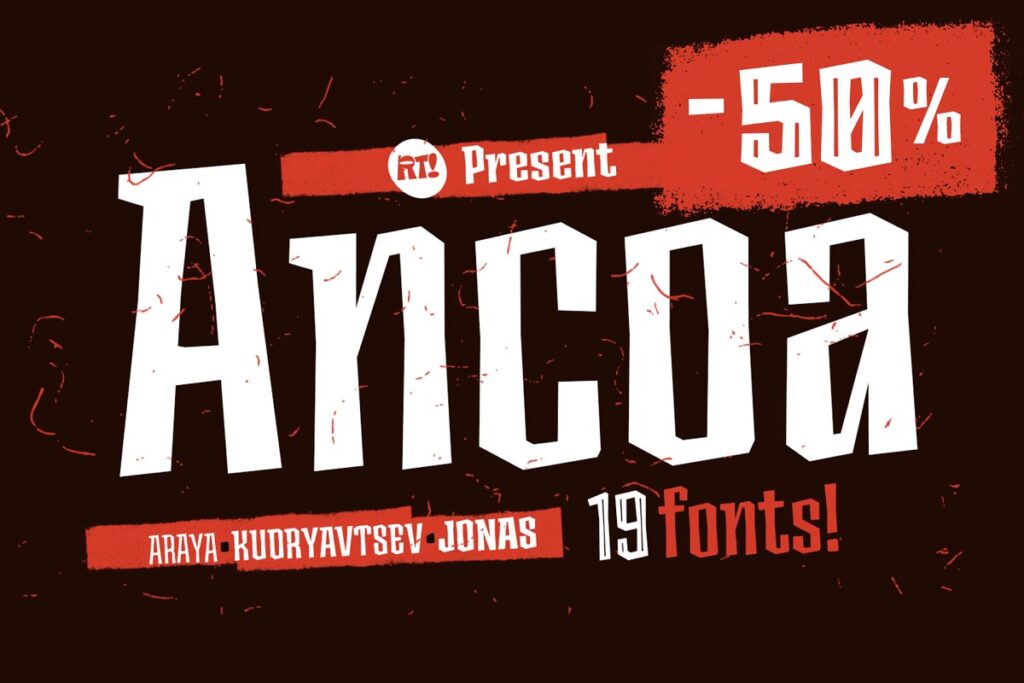
Ancoa Display Family. This is a powerful font family and charming sans serif. Futuristic and modern design is visible in strong strongly highlighted lines and shadows of the letters. Use this font in every creative design you can imagine, and your work will become attractive. It’s designed and shared by Rodrigo Typo.